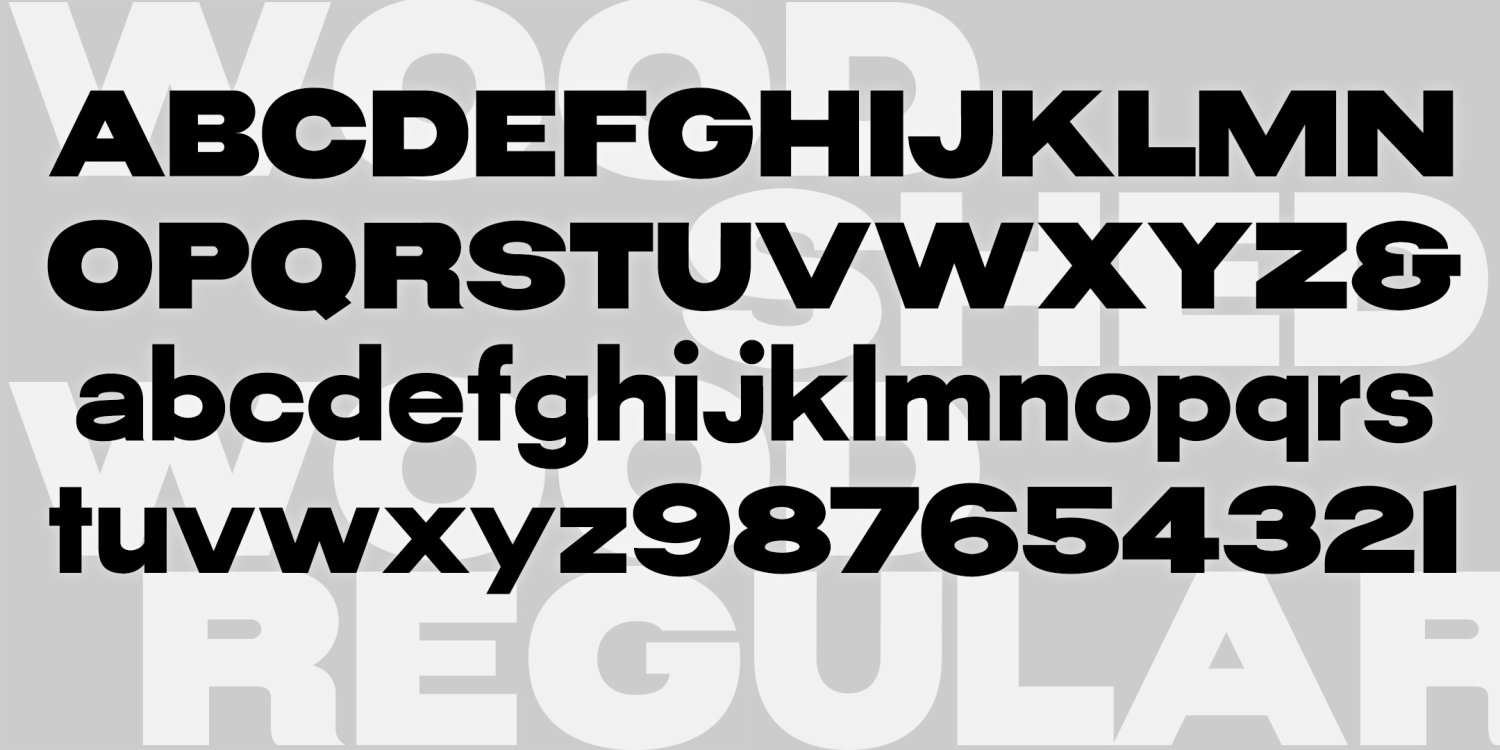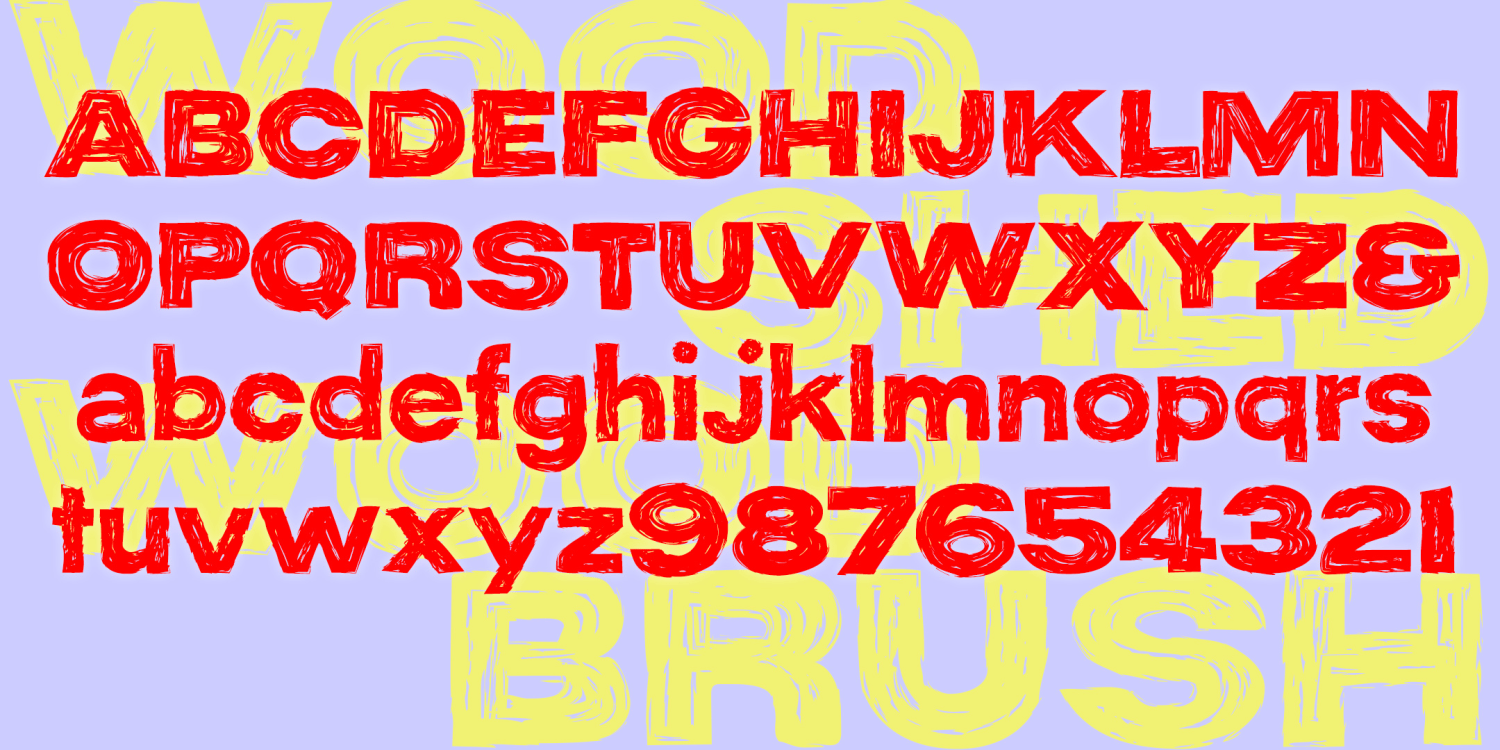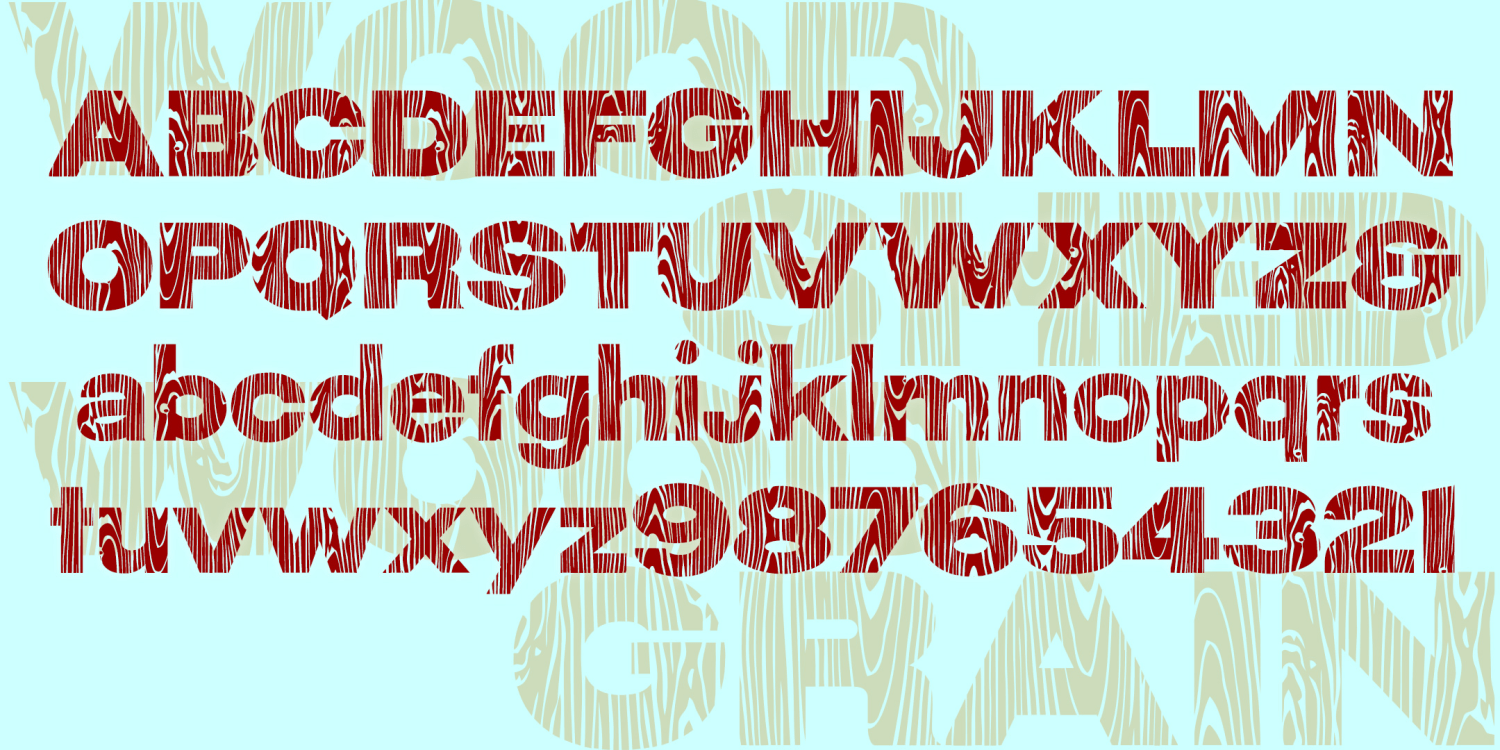
Wood Shed
WOOD SHED is a bold sans serif inspired by examples of hand lettering from the 1940s, familiar with just enough unusual letterforms to make it distinctive. I've created 2 companion fonts with texture: a bold woodgrain and a scratchy dry brush. Either can be used alone or layered with the solid font to create additional color effects.
The Wood Shed font family includes 293 glyphs.